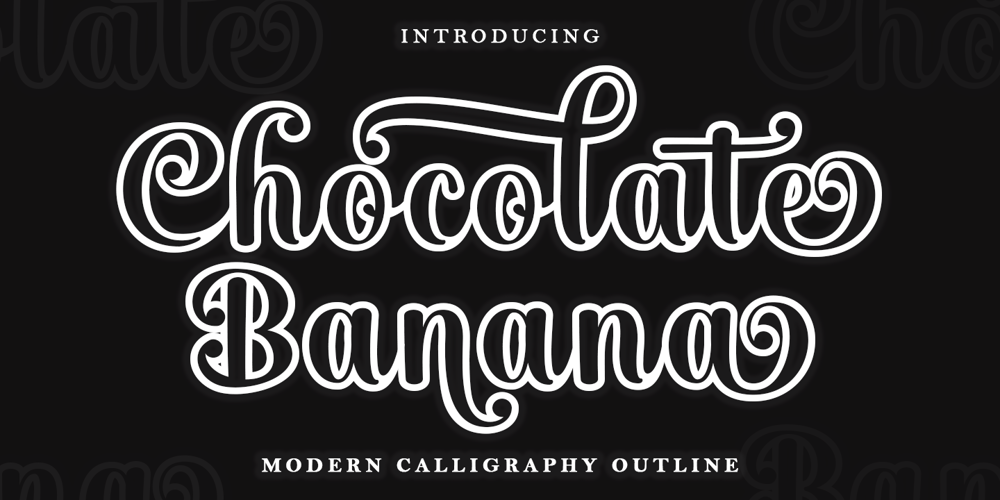
Chocolate Banana Outline
Chocolate Banana Outline font
Chocolate Banana Outline Font Family was designed by Zaki Muhammad and published by madjack.font. Chocolate Banana Outline contains 1 styles and family package options. Chocolate Banana Outline is a modern calligraphy design including Regular. This typeface is casual and beautiful with grids. Can be used for various purposes. such as logos, product packaging, wedding invitations, branding, headlines, signage, labels, signatures, book covers, posters, quotes, and much more.Chocolate Banana Outline includes OpenType language styling changes, binding and international support for most Western languages. To enable alternative OpenType features, you need a program that supports OpenType features such as Adobe Illustrator CS, Adobe Indesign & CorelDraw X6-X7, Microsoft Word 2010 or later versions. How to access all alternate characters using Adobe Illustrator:https://www.youtube.com/watch?v=XzwjMkbB-wQChocolate Banana Outline is encoded with Unicode PUA, which allows full access to all additional characters without having to have special design software. Mac users can use Letter Book, and Windows users can use Character Maps to view and copy any additional characters to attach to your favorite text editor/application. How to access all alternate characters using Windows Character Map with Photoshop:https://www.youtube.com/watch?v=Go9vacoYmBwIf you need help or have any questions, let me know. I’m happy to help 🙂 Thank you & Happy Designing!